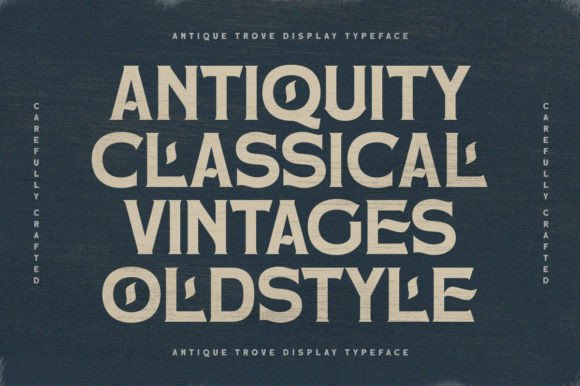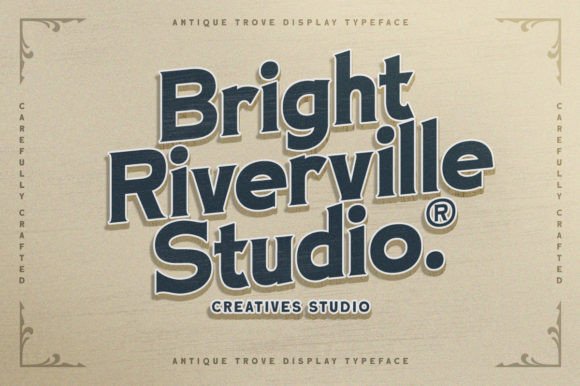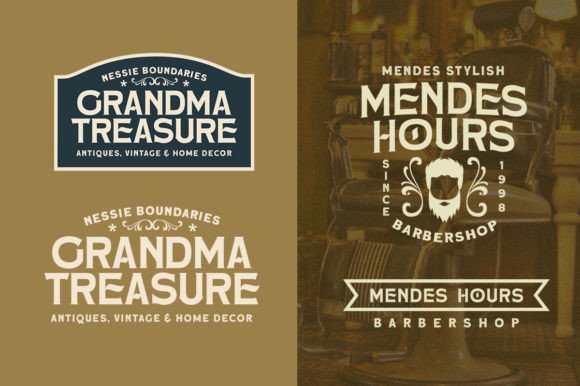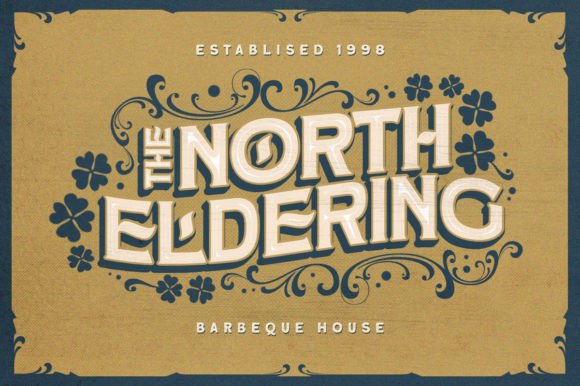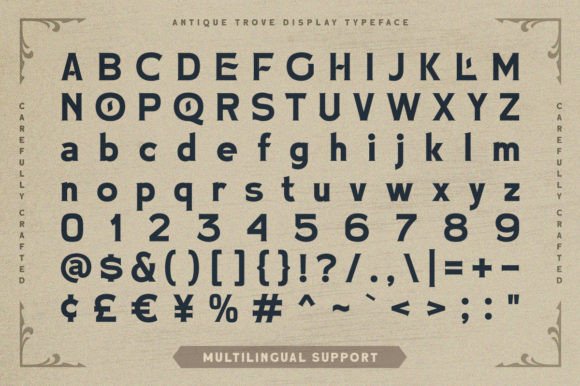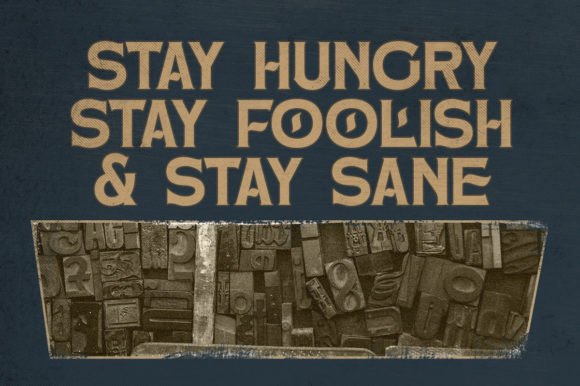
Uncover the Charm of Antique Trove Font: A Timeless Classic for Your Designs
Are you a designer or crafter looking for a font that exudes nostalgia and sophistication? Look no further than Antique Trove Font, a vintage-style display font that is sure to elevate your designs to the next level. With its strong, confident, and dynamic aesthetic, Antique Trove is the perfect choice for those seeking to add a touch of classic charm to their work.
The Characteristics of Antique Trove Font
Antique Trove Font is a carefully crafted font that embodies the essence of a bygone era. Its classic, vintage-style design reads as strong, confident, and dynamic, making it an excellent choice for a wide range of design applications. Whether you’re working on a logo, poster, or packaging design, Antique Trove is sure to make a lasting impression.
One of the standout features of Antique Trove Font is its unique blend of nostalgic character and modern flair. The font’s bold, expressive letters are reminiscent of classic signage and advertising from the early 20th century, yet its clean lines and precise craftsmanship ensure that it remains highly legible and versatile.
What Makes Antique Trove Font So Versatile?
Antique Trove Font is an incredibly versatile design tool that can be used in a wide range of creative projects. Here are just a few examples of how you can use this amazing font:
- Posters and Flyers: Grab attention and convey your message with bold, eye-catching typography.
- Packaging Design: Add a touch of vintage charm to your product packaging and make it stand out on store shelves.
- Signage and Displays: Create eye-catching signs and displays that showcase your message in a clear and compelling way.
Tips for Using Antique Trove Font Effectively
To get the most out of Antique Trove Font, here are a few tips to keep in mind:
- Use it sparingly: Antique Trove Font is a bold, attention-grabbing font that can quickly overwhelm your design if overused. Use it sparingly to create maximum impact.
- Pair it with complementary fonts: Combine Antique Trove Font with cleaner, more modern fonts to create visual interest and contrast.
- Experiment with colors and textures: Add depth and dimension to your design by experimenting with different colors and textures.
Why Designers and Crafters Love Antique Trove Font
Antique Trove Font has quickly become a favorite among designers and crafters, and for good reason. Here are just a few reasons why:
- Unique and distinctive: Antique Trove Font offers a fresh, unique perspective on vintage-style typography.
- Easily legible: Despite its bold, expressive design, Antique Trove Font remains highly legible, even at smaller sizes.
- Highly versatile: Use Antique Trove Font in a wide range of design applications, from logos and branding to packaging and signage.
In conclusion, Antique Trove Font is a timeless classic that is sure to add a touch of nostalgia and sophistication to your designs. With its strong, confident, and dynamic aesthetic, this vintage-style display font is the perfect choice for designers and crafters looking to create eye-catching, memorable designs. Whether you’re working on a logo, poster, or packaging design, Antique Trove Font is sure to make a lasting impression.